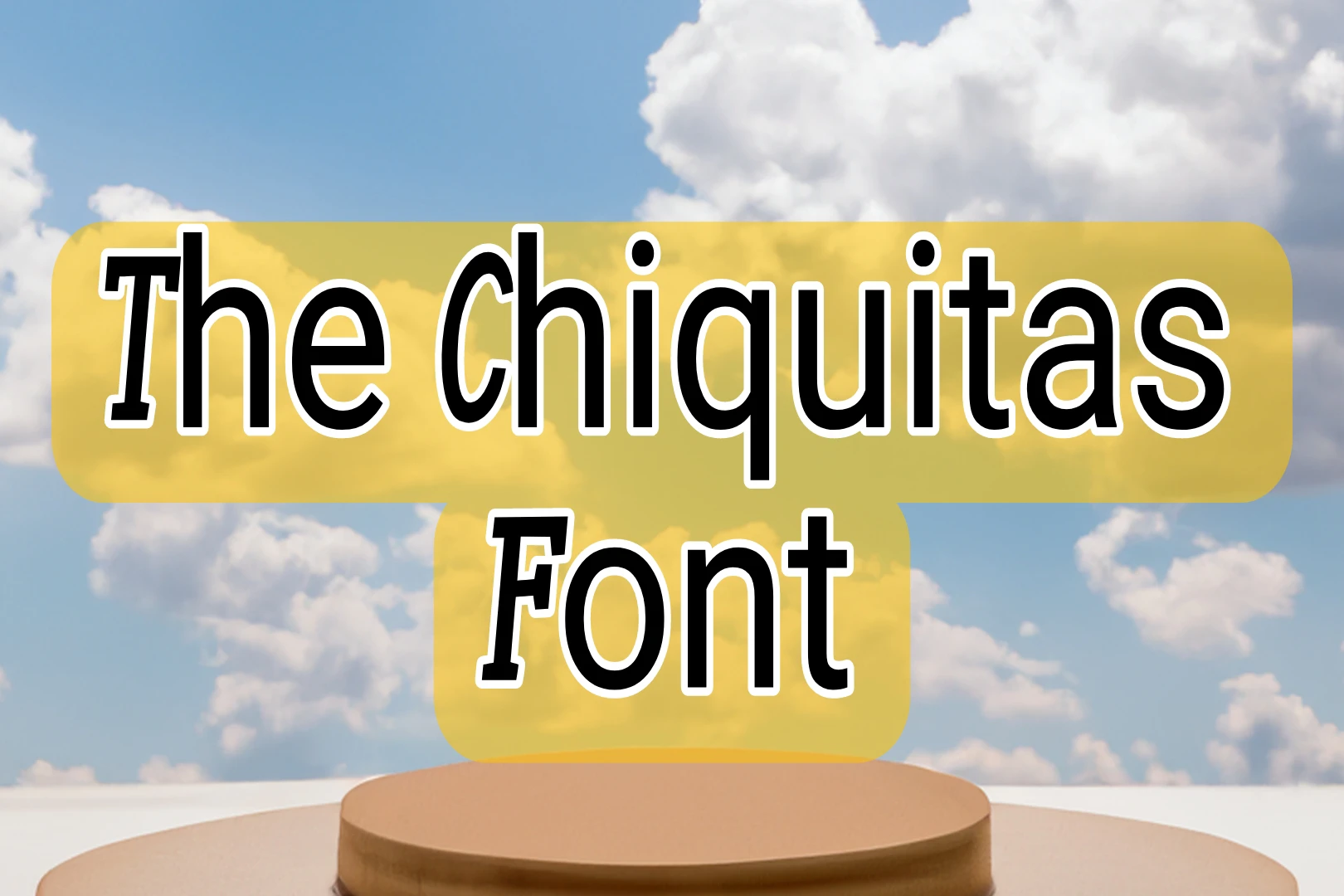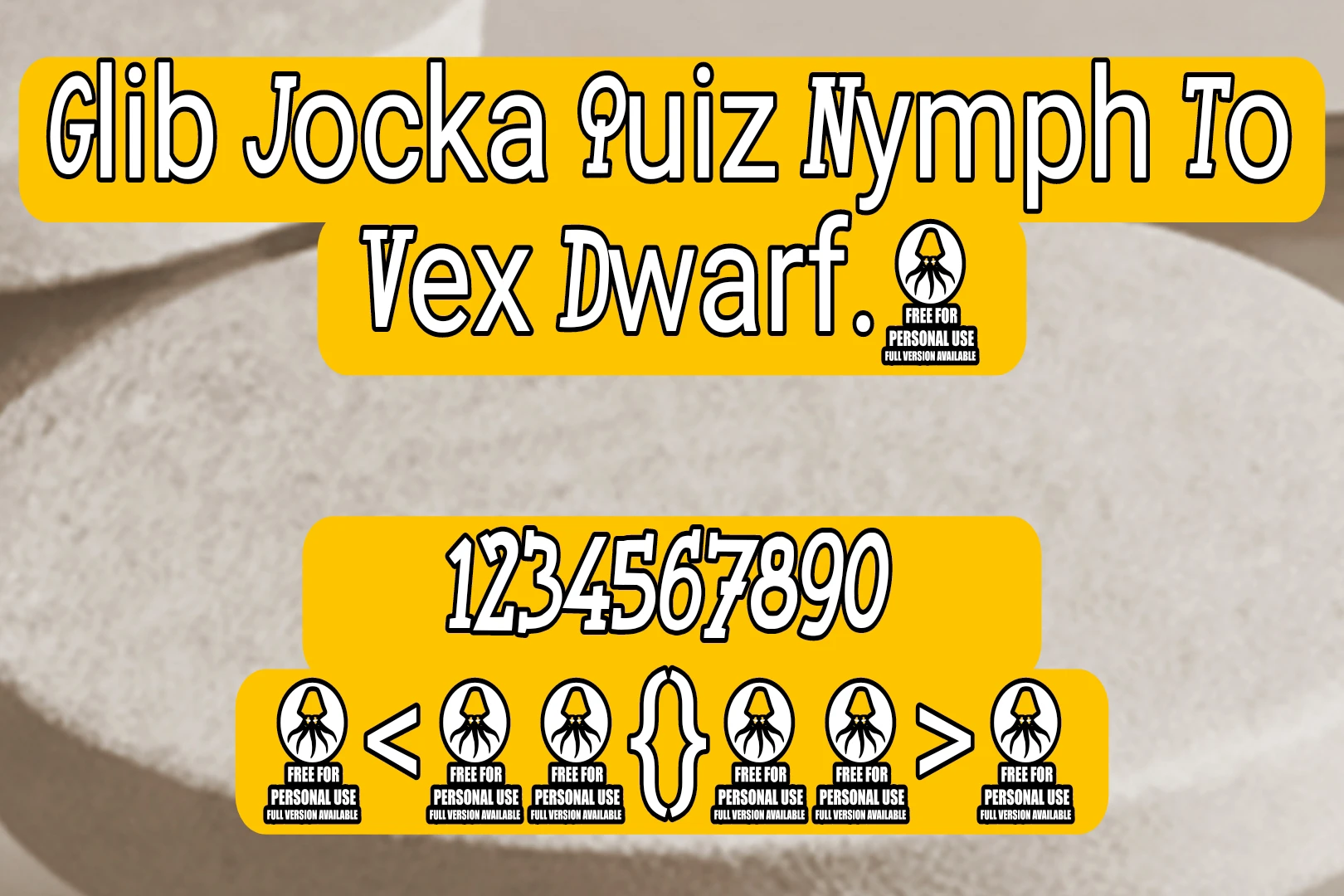
The Chiquitas Font is a lively and decorative typeface designed by Thomas Boucherie under Octotype. It is classified as a thematic or decorative font.
It was crafted with a playful aesthetic, making it ideal for designs needing a bold, engaging style and released in 2017. This font captures attention with its whimsical curves and bold strokes, resonating well with retro, pop art, and unique branding styles.
The Chiquitas Font Characters
Usage of The Chiquitas Font
It shines in a variety of uses, especially when applied to designs that prioritize a quirky or vibrant feel. It is popular in logo design, posters, and product packaging where personality is key.
Where can I use The Chiquitas Font?
It’s suitable for posters, logos, and other decorative design projects.
Can I pair The Chiquitas Font with simpler fonts?